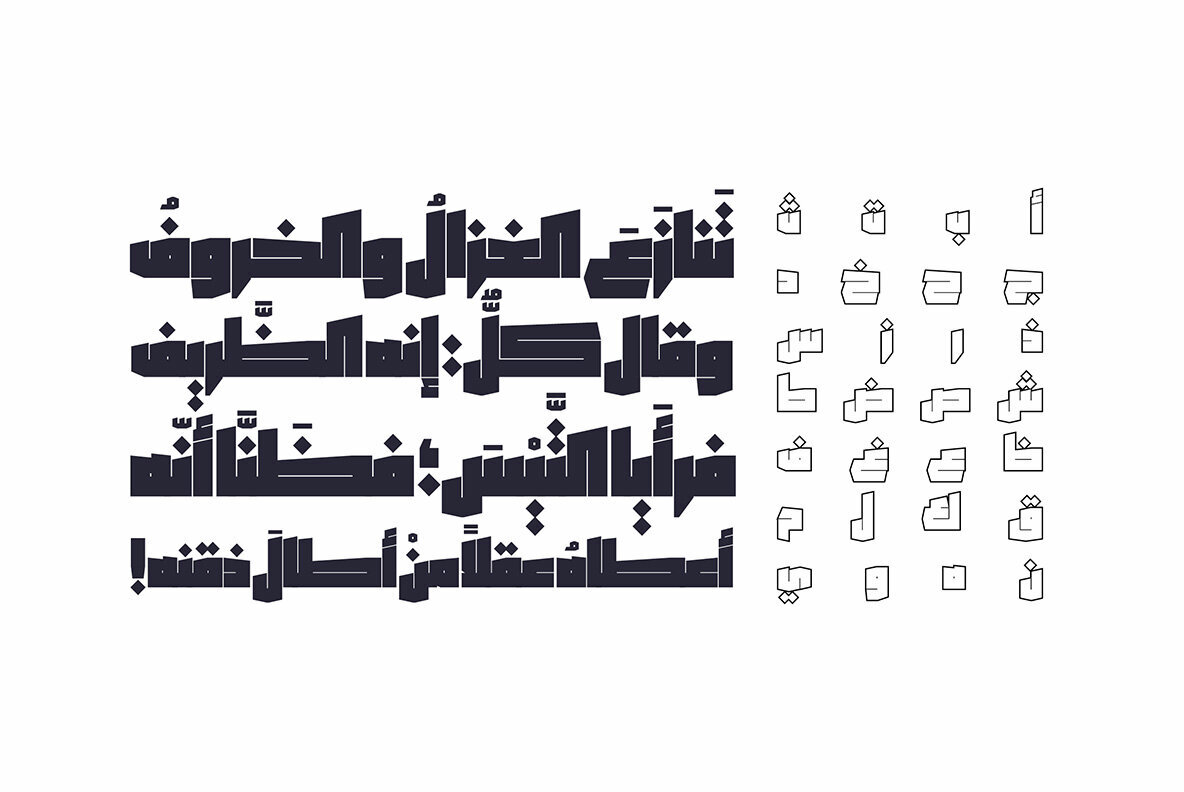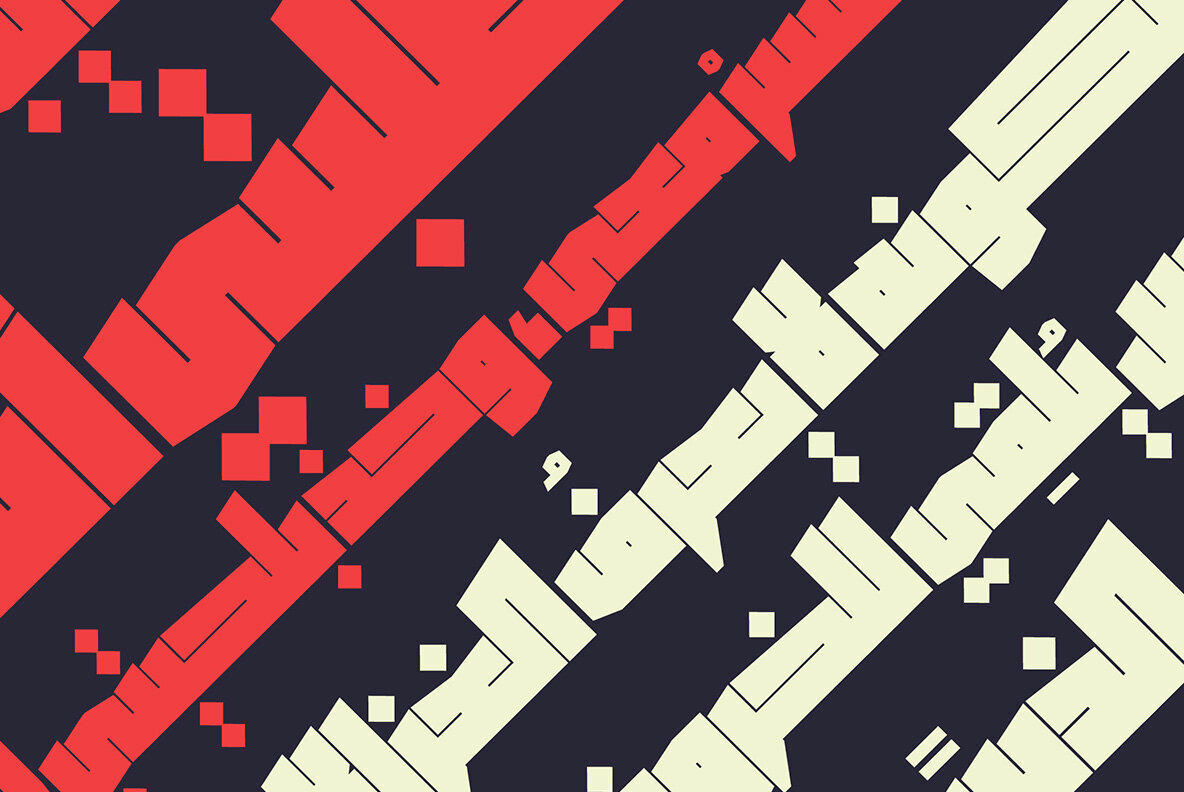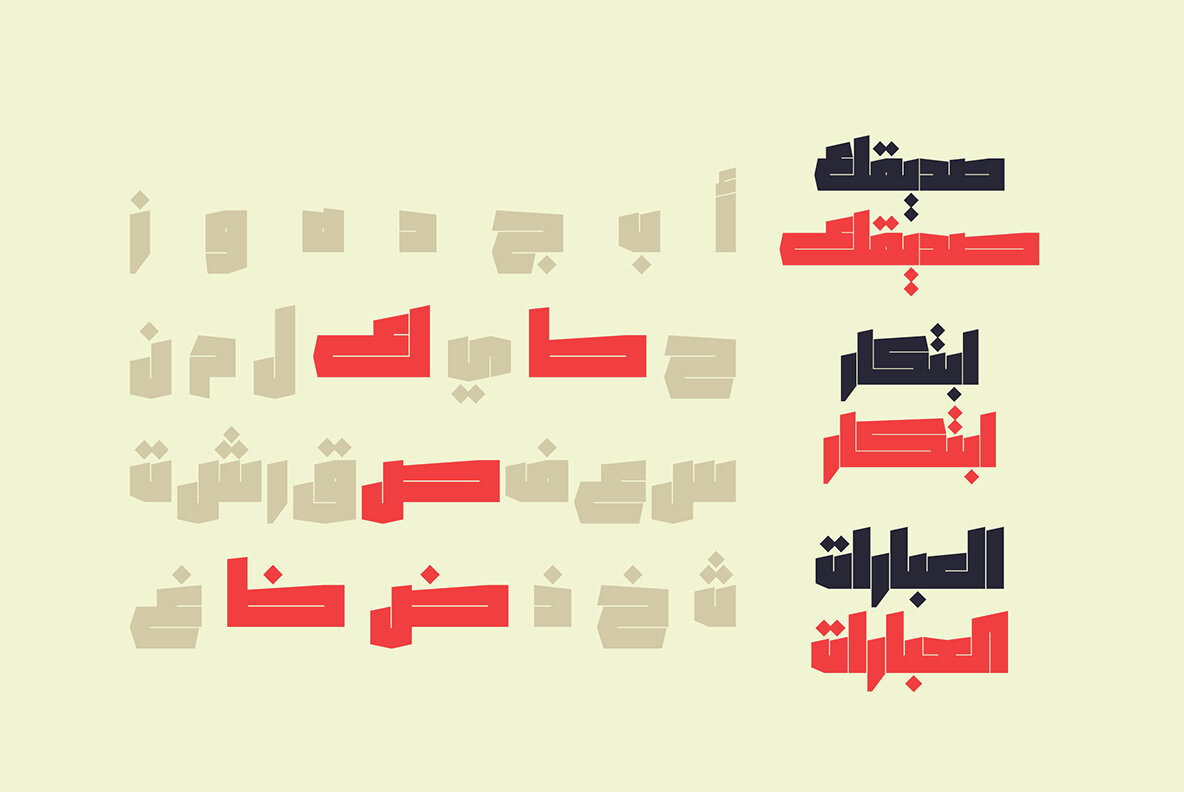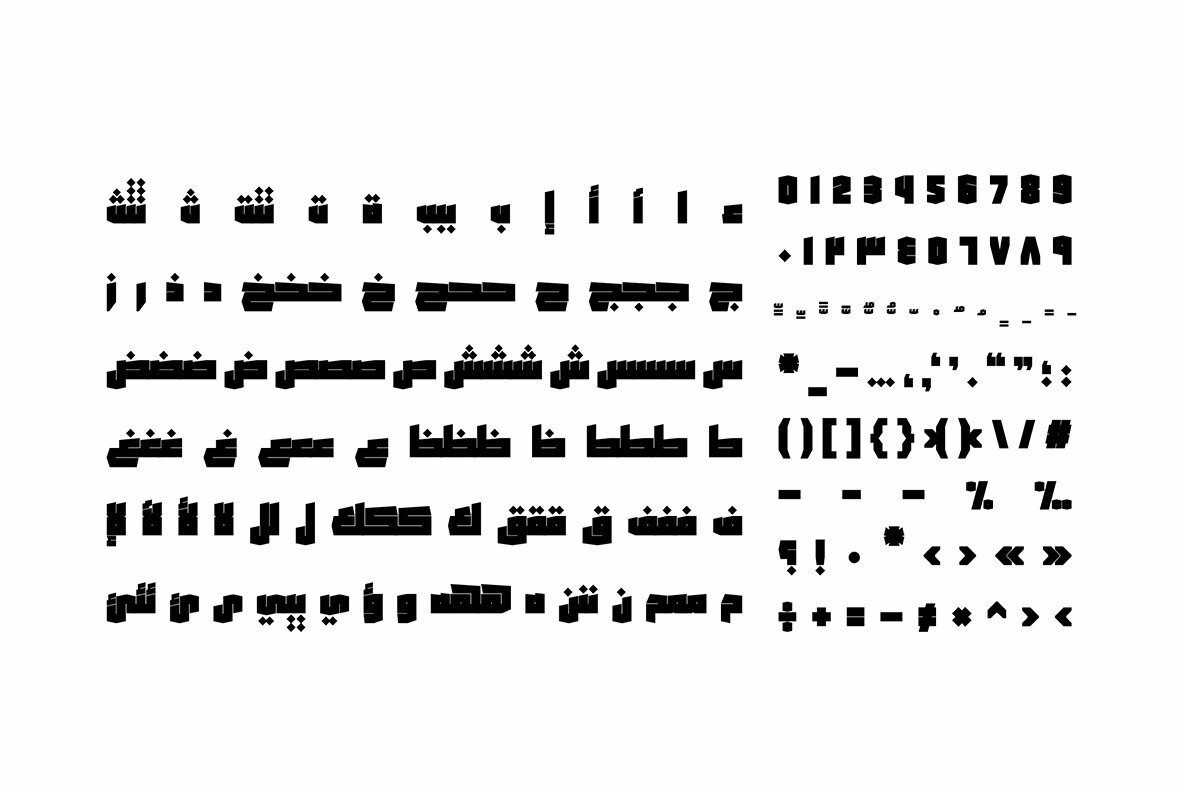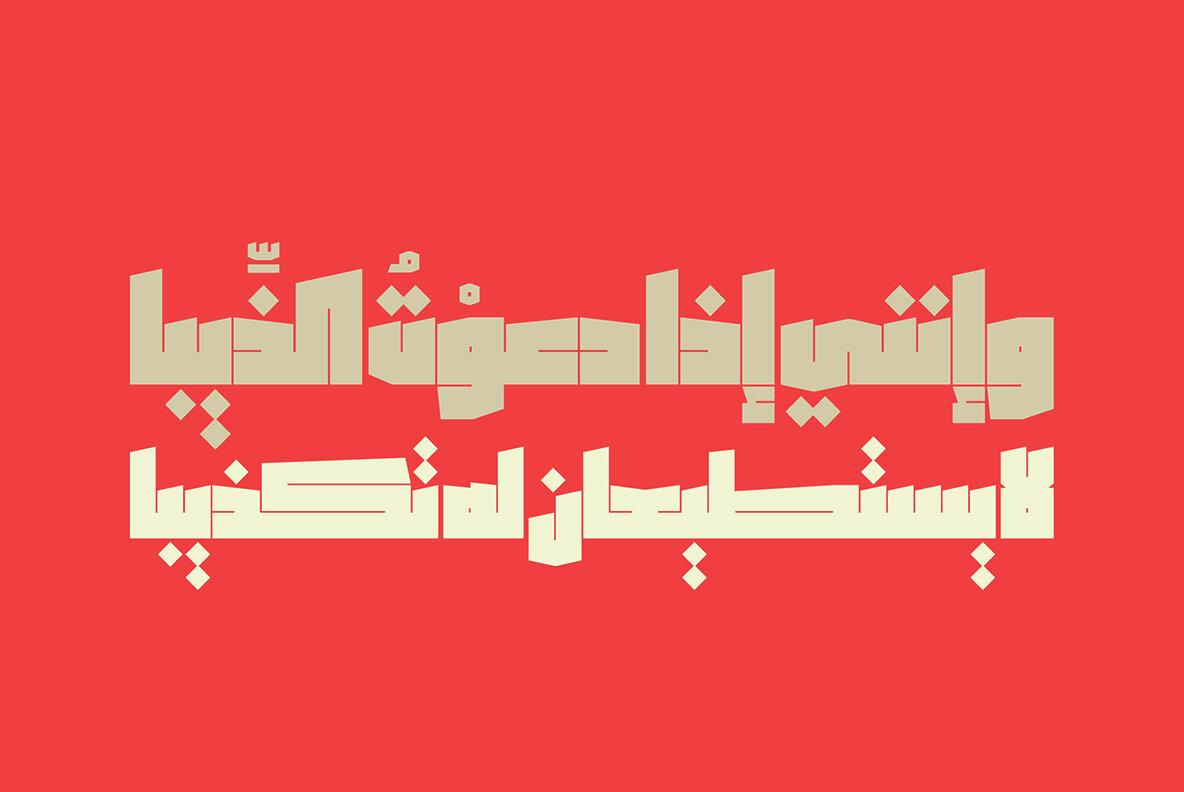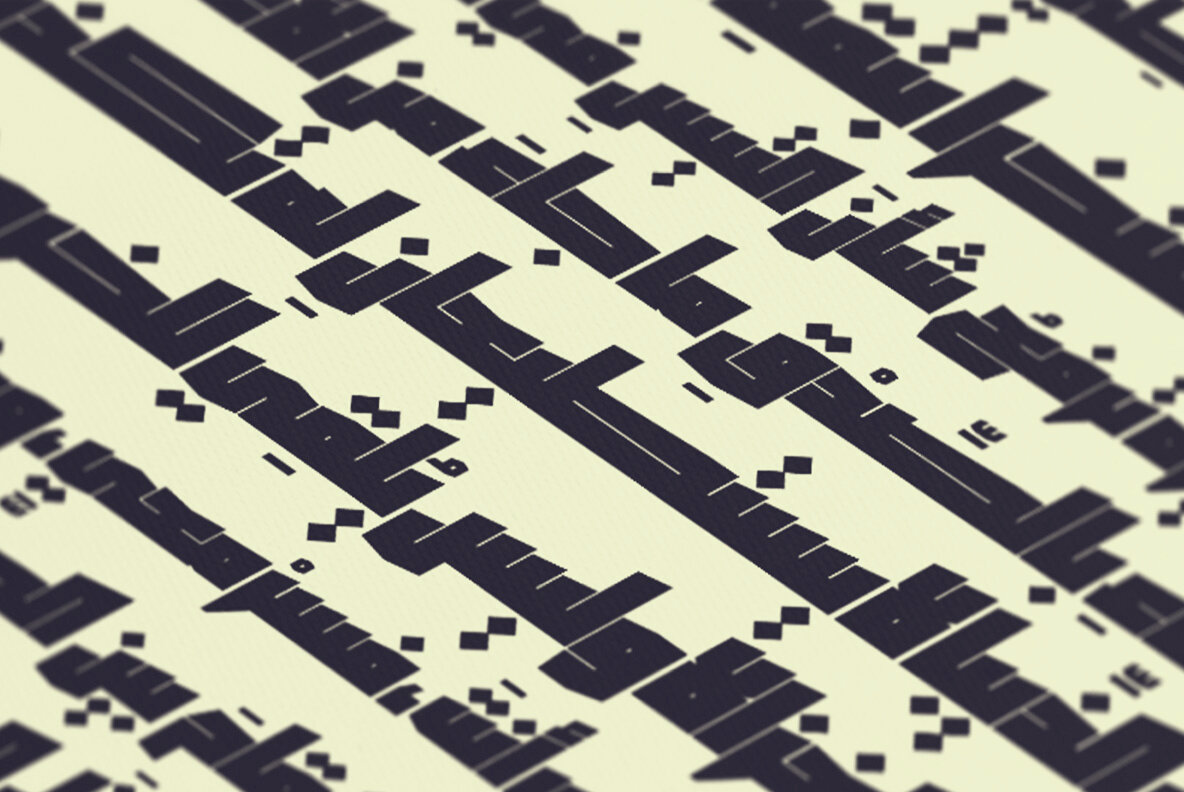
Saiihah 1
The word Saiihah is the Arabic for shout. Saiihah is an Arabic display font with an extra heavy style. It suits branding, posters and advertising.